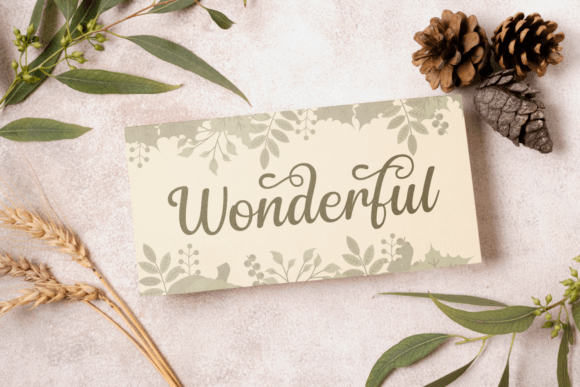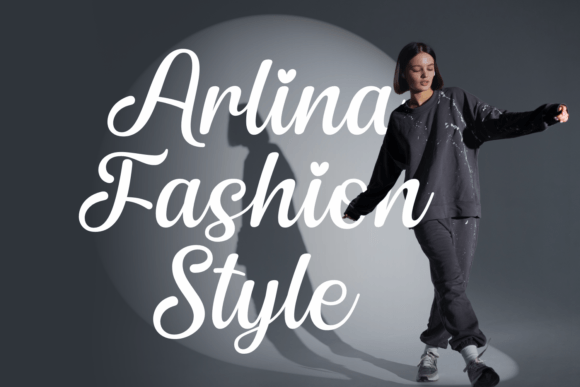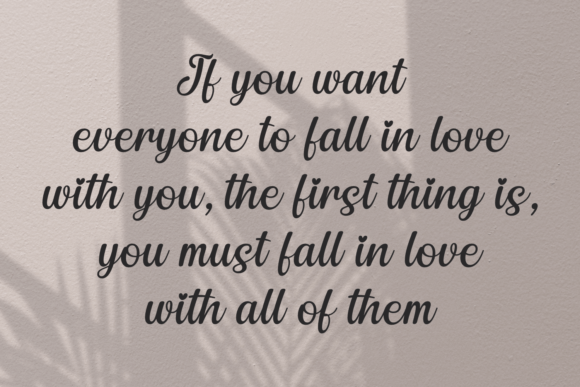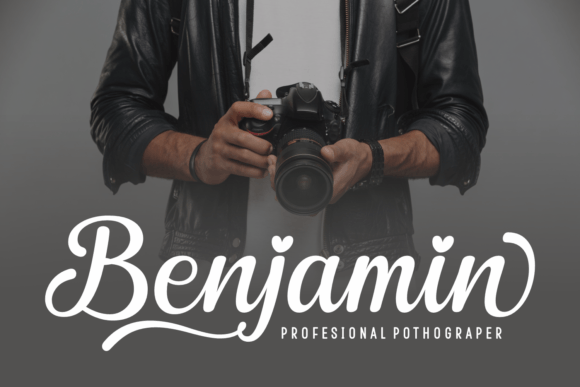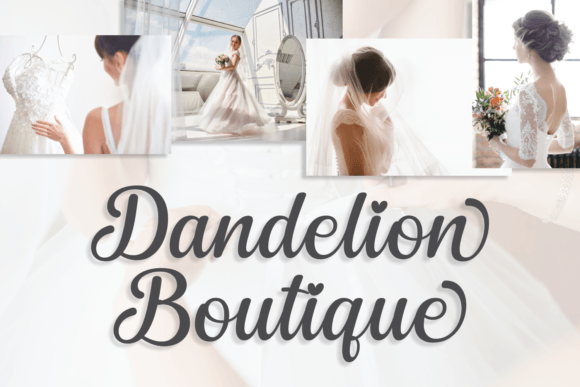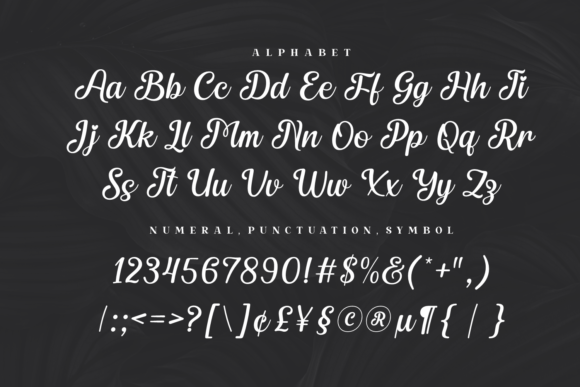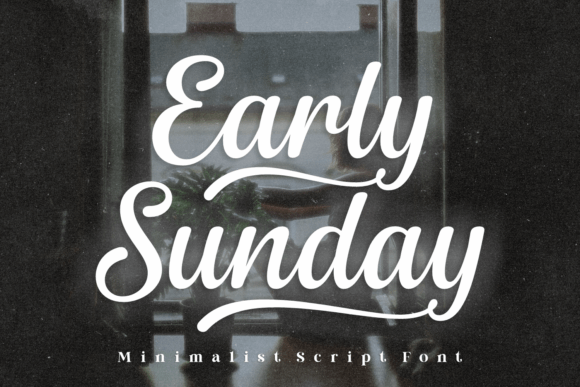
Introducing Early Sunday Font: The Perfect Choice for Valentine’s Day and Beyond
Are you looking for a font that captures the essence of love and affection? Look no further than Early Sunday Font, a beautiful and charming typeface that’s perfect for creating romantic cards, invitations, and social media posts. With its unique heart-themed design, this font is sure to take your Valentine’s Day creations to a whole new level.
What Makes Early Sunday Font So Special?
Early Sunday Font is a one-of-a-kind typeface that features hearts instead of dots on characters like “i” and “j”, giving it a playful and romantic touch. This font is perfect for designers and crafters who want to add a personal and emotional touch to their work. Whether you’re creating a Valentine’s Day card, a wedding invitation, or a social media post, Early Sunday Font is sure to convey your heartfelt sentiments with style and elegance.
Perfect for a Variety of Purposes
Early Sunday Font is versatile and can be used for a variety of purposes, including:
- Creating romantic cards and invitations for Valentine’s Day, anniversaries, and weddings
- Designing social media posts that express love and affection
- Making custom gifts, such as mugs, t-shirts, and tote bags, for loved ones
- Adding a personal touch to your digital and print projects
Early Sunday Font is PUA (Private Use Area) encoded, which means that you can access all of the amazing glyphs and ligatures with ease. This font features a range of special characters, including hearts, arrows, and other decorative elements that will take your designs to the next level. With PUA encoding, you can easily access these characters using your computer’s character map or font software.
Conveying Warmth, Love, and Affection
Early Sunday Font is more than just a typeface – it’s a way to express your emotions and connect with your audience on a deeper level. This font conveys a sense of warmth, love, and affection, making it perfect for:
- Valentine’s Day cards and gifts
- Anniversary messages and gifts
- Birthday greetings and cards
Tips for Using Early Sunday Font
Here are some tips for getting the most out of Early Sunday Font:
- Use it in combination with other romantic fonts to create a unique and eye-catching design
- Don’t be afraid to get creative and try new things – Early Sunday Font is versatile and can be used in a variety of contexts
Early Sunday Font is a beautiful and charming typeface that’s perfect for designers and crafters who want to add a touch of romance and affection to their work. With its unique heart-themed design and PUA encoding, this font is sure to take your Valentine’s Day creations to a whole new level. Whether you’re creating cards, invitations, or social media posts, Early Sunday Font is the perfect choice for expressing heartfelt sentiments to a loved one.